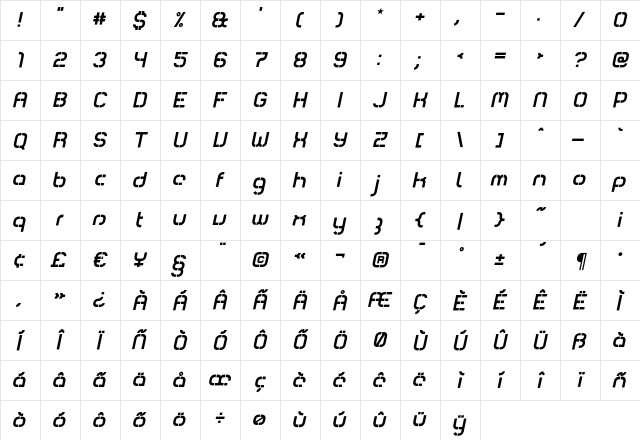
Comsat BoxItalic Free Font
Comsat BoxItalic
Style: BoxItalic
Design Context for Comsat
Comsat is a composed and adaptable typeface that performs quietly and consistently across a wide range of design contexts. The slanted form adds forward momentum and visual energy.
Pro Tip: Use Comsat for emphasis, pull quotes, and subheadings where its slanted energy can add rhythm to the layout.